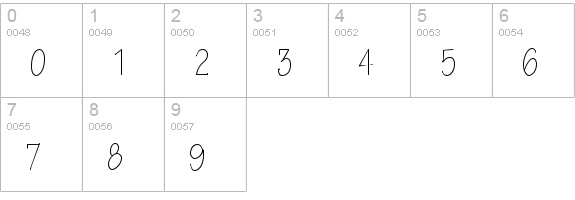
Tekton Pro Light Condensed Font Details
Tekton Pro Light Condensed is a refined, elegant, condensed-width variant in the Tekton typeface family \xE2\x80\x94 well suited to elegant body text, refined sub-headings, and luxury branding.
Tekton Pro Light Condensed is a visually striking and versatile font that embodies elegance and sophistication. This condensed variant of the popular Tekton Pro font family is perfect for adding a touch of refinement to your designs. With its clean lines and balanced proportions, Tekton Pro Light Condensed exudes a sense of professionalism and modernity. This font is characterized by its slim and narrow letterforms, which allow for more text to fit within limited spaces without compromising legibility. Whether you're designing a logo, creating a brochure, or working on a website, Tekton Pro Light Condensed will effortlessly elevate your project to new heights. One of the most remarkable aspects of Tekton Pro Light Condensed is that it is available for free download at FontsMarket.com. This means that you can access this exceptional font without any cost, making it an invaluable resource for designers, students, and professionals alike. The versatility of Tekton Pro Light Condensed extends beyond its aesthetic appeal. Its extensive character set includes a wide range of punctuation marks, symbols, and diacritical marks, ensuring that you have all the tools you need to bring your creative vision to life. Additionally, this font supports multiple languages, allowing you to communicate effectively across different cultures and regions. Whether you're aiming for a bold and impactful message or a subtle and understated design, Tekton Pro Light Condensed is the perfect choice. Its versatility, elegance, and freely available nature make it an indispensable addition to any designer's toolkit. Download this extraordinary font today from FontsMarket.com and experience the endless possibilities it offers.